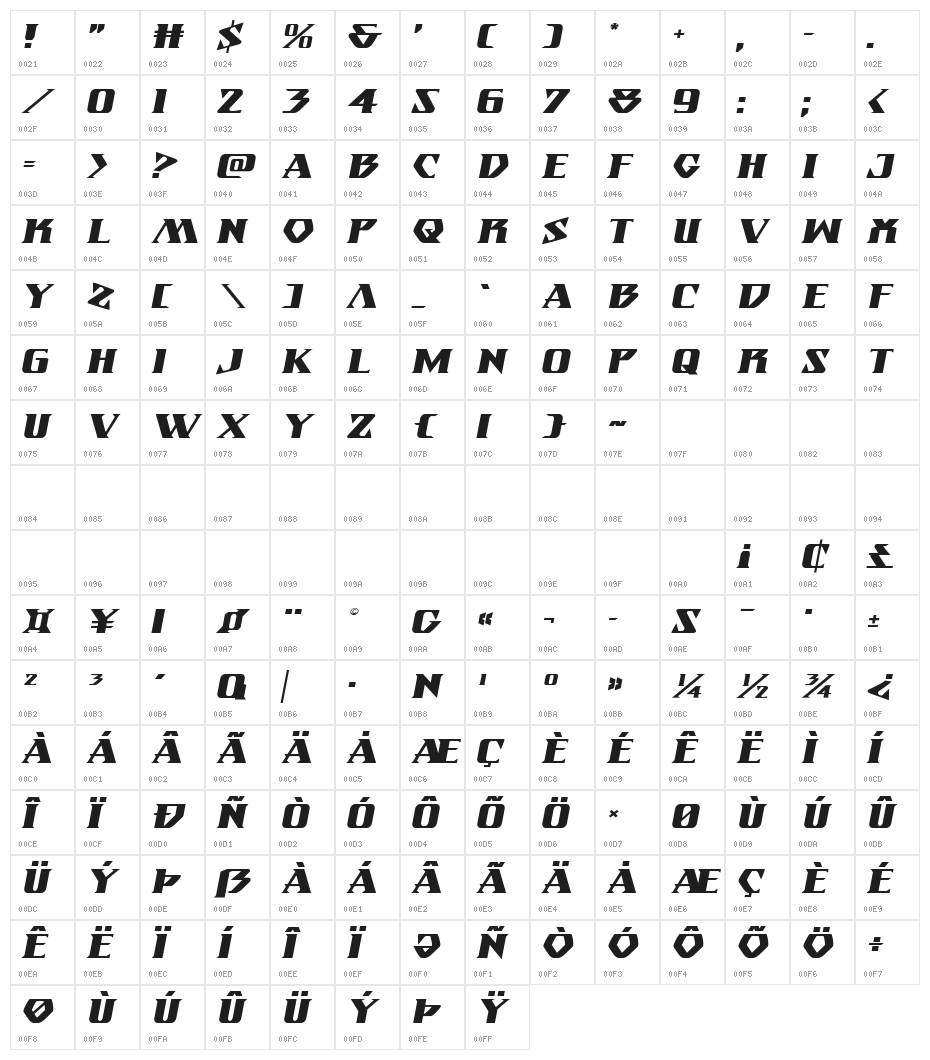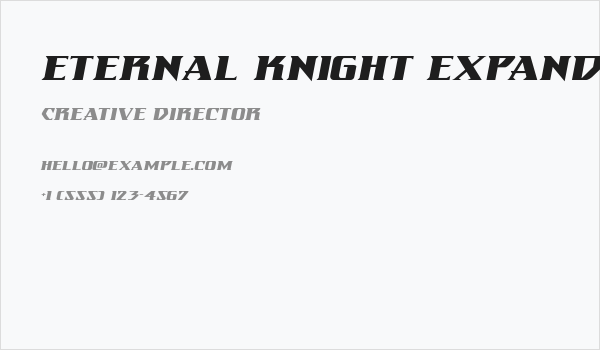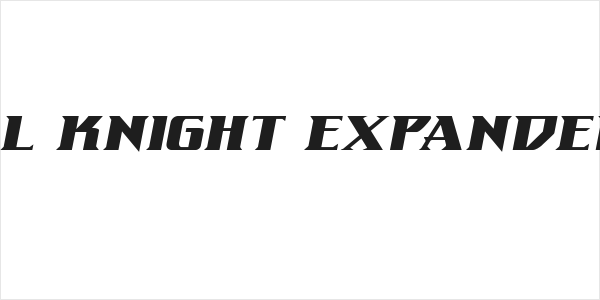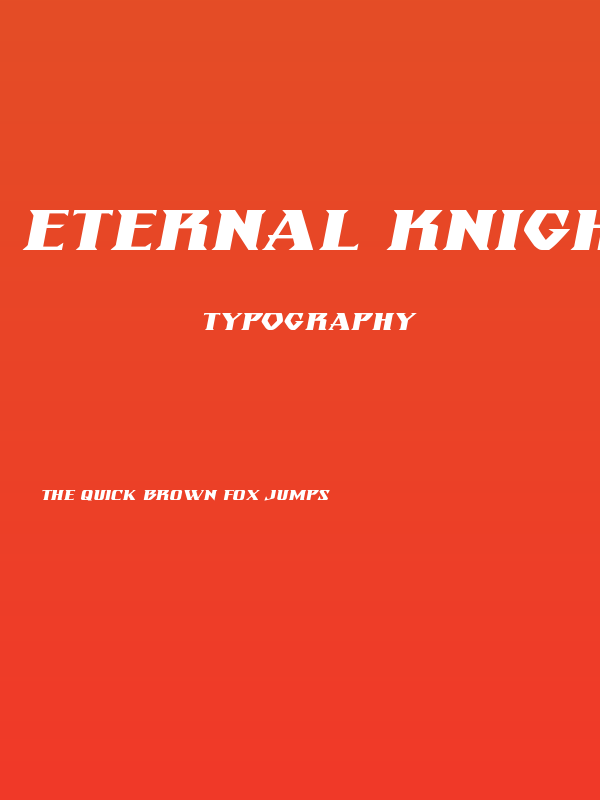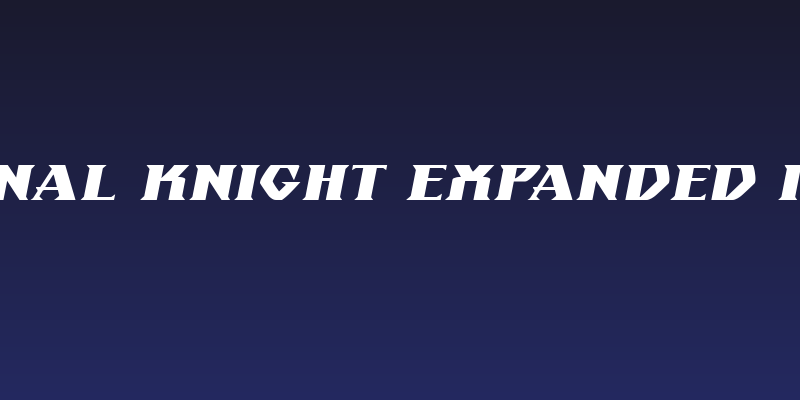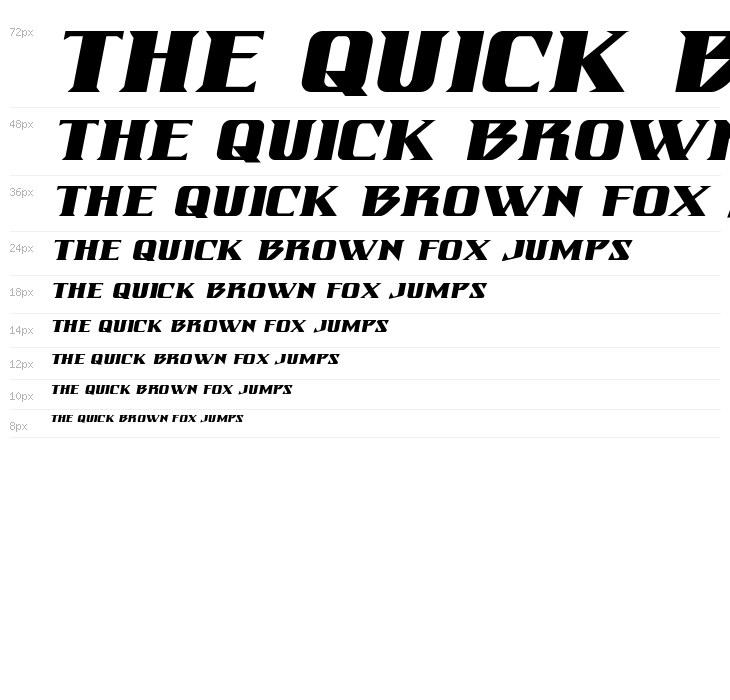
Eternal Knight Expanded Italic Font
Eternal Knight Expanded Italic Description
This font features a bold and dynamic design with a distinct italic slant, giving it a sense of motion and energy. The characters are expanded, providing a wide and impactful appearance. The sharp angles and geometric shapes contribute to a futuristic and edgy style, making it stand out in any design. The uppercase and lowercase letters maintain a consistent style, with numbers and special characters following the same bold and angular theme. This font is perfect for projects that require a strong visual impact and a modern aesthetic.
| Overall Style | Futuristic, Edgy |
| Proposed Projects | Ideal for branding, posters, video game titles, and sci-fi themed designs. |